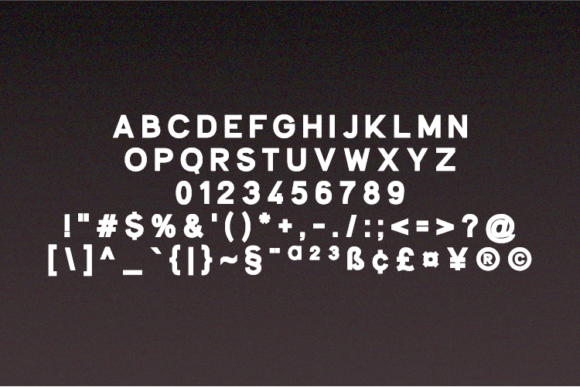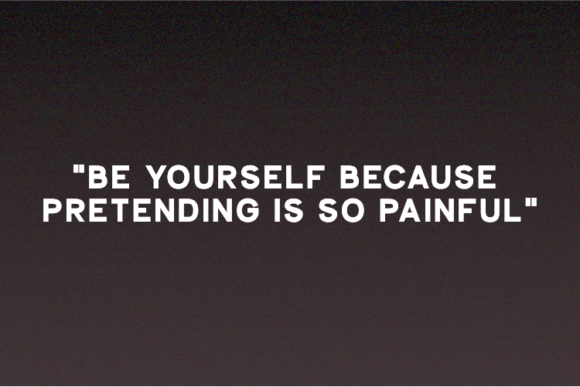
Introduction to Monopolize Font
Monopolize is a cool and neat sans serif font.
Modern and classy, this font is suitable for a large variety of creative ideas Add it confidently to your projects and you will love the results.
Key Features of Monopolize Font
Why Choose Monopolize Font?
Monopolize Font offers exceptional quality and versatility, making it a valuable addition to your design toolkit. Whether you’re creating for personal projects or commercial use, Monopolize Font delivers professional results.